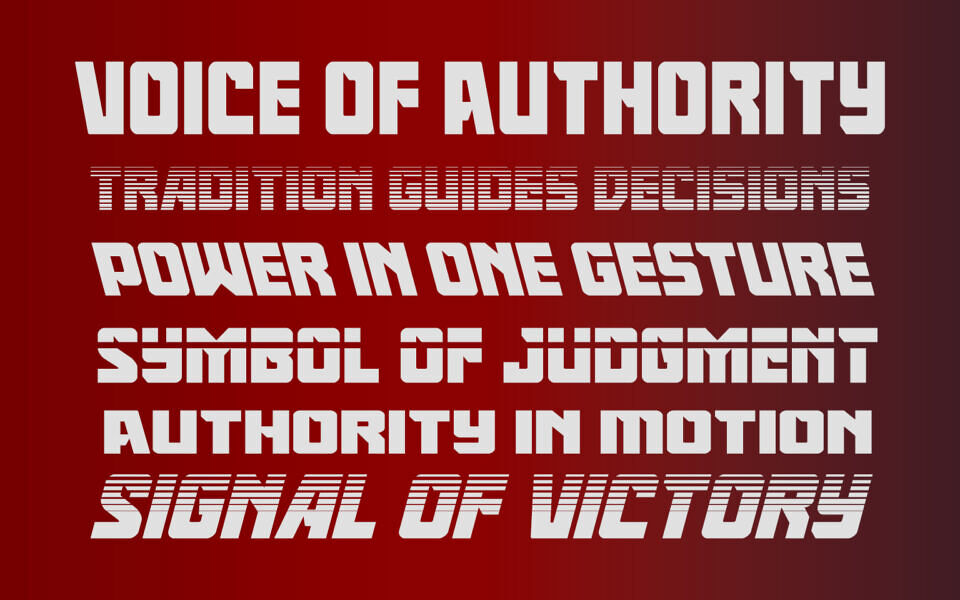
Gunbai Font Family
Gunbai is a bold, futuristic display font by Iconian Fonts, inspired by Japanese aesthetics and samurai-style brush energy, featuring sharp, dynamic letterforms ideal for logos, posters, and game titles.
The family includes multiple styles: Regular, Italic, 3D, 3D Italic, Condensed, Condensed Italic, Expanded, Expanded Italic, Gradient, Gradient Italic, Halftone, Halftone Italic, Laser, Laser Italic, Leftalic, Semi Italic, Semi Leftalic, Slight Italic, Slight Leftalic, Spaced, Spaced Italic, Super Italic, Wide, and Wide Italic.